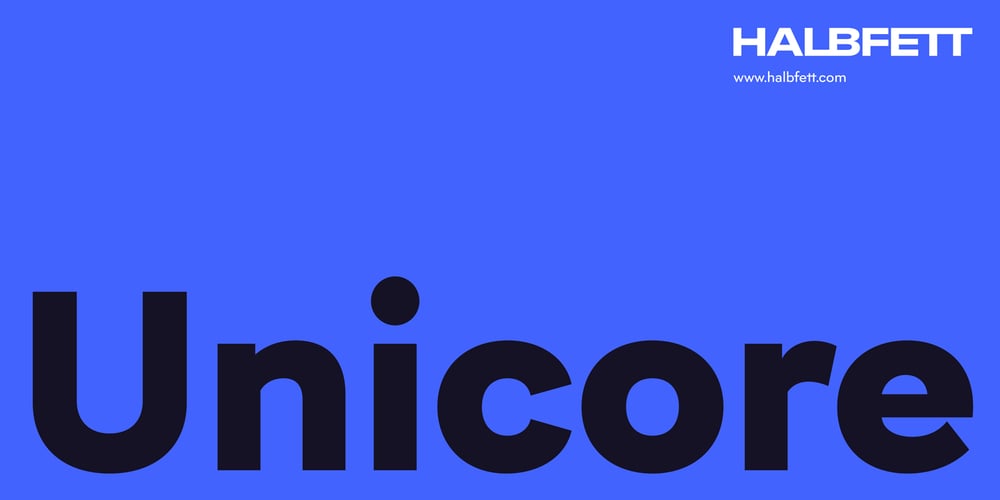
Unicore Font Family was designed by Deni Anggara and published by Halbfett. Unicore contains 18 styles and family package options. Unicore is a large family of geometric sans serif fonts. Design wise, it is inspired by classic 20th-century typefaces like Futura, Gill Sans, and Avenir. It fuses their aura with contemporary elements, like a unique harmonisation of width and height. You can see this in the lowercase letters especially and it helps support the fonts’ legibility. The regular weights in the family are optimised for body text.